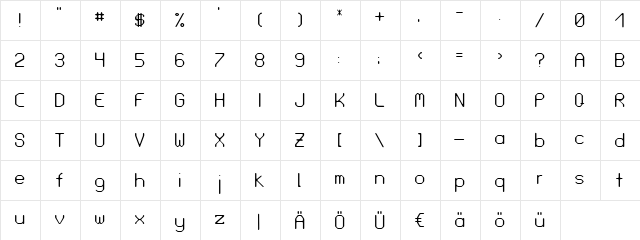
LoveParade Regular
| Foundry | designed by Dieter Schumacher \ |
Design Context for LoveParade Typeface
LoveParade offers clean, dependable letterforms without strong stylistic allegiance, making it a practical choice for designers who need flexibility.